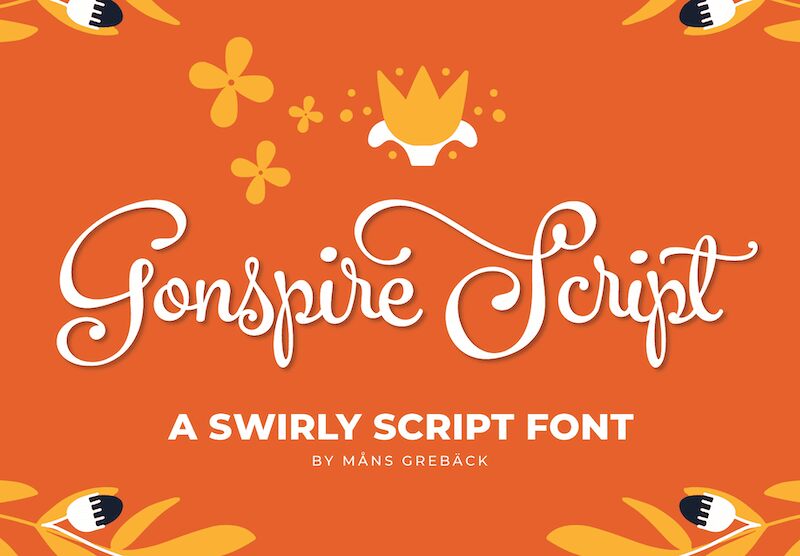
Gonspire Swash PERSONAL Regular
Gonspire Swash, a creation by the talented Mans Greback, is a semi-light calligraphy font that embodies elegance and charm. Its swirly and swashy design is not just a treat for the eyes but also a testament to the craftsmanship involved in its making. Each letter in the Gonspire family boasts graceful curves, sophisticated swooshes, and delicate ornaments, making it nothing short of a decorative masterpiece.
The aesthetic appeal of Gonspire Swash is undeniable—it exudes an air of romance and artistry that can elevate any design project. From wedding invitations to branding materials, this typeface has the versatility to add a personal touch with its lovely design features. The intricate details within each character suggest a careful balance between ornamental beauty and legible craftsmanship.
Whether you're aiming for vintage charm or contemporary elegance, Gonspire Swash offers endless possibilities for creative expression across various mediums. Its unique characteristics ensure that it stands out as more than just text—it's an integral part of your visual storytelling.